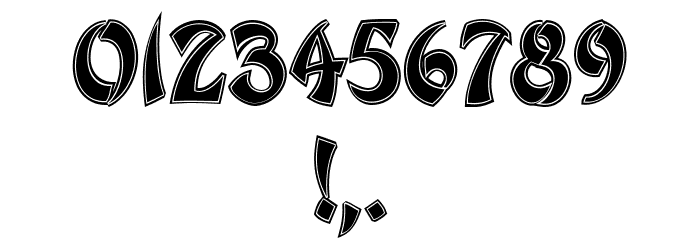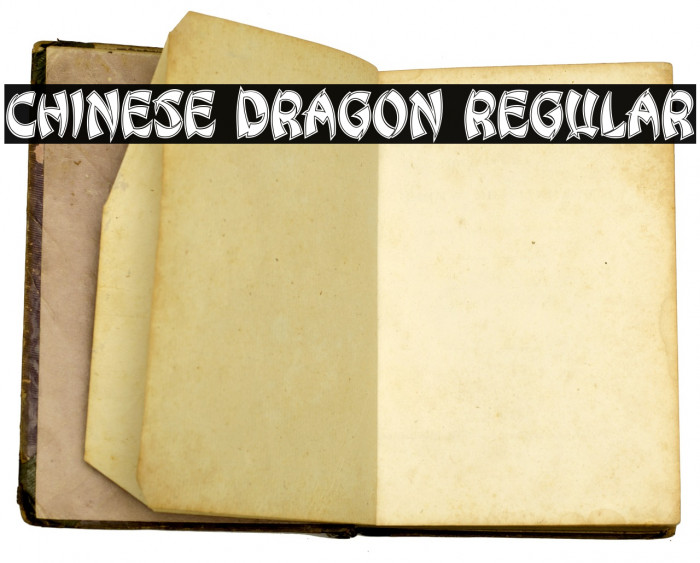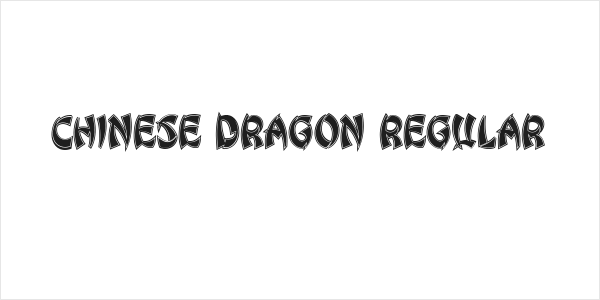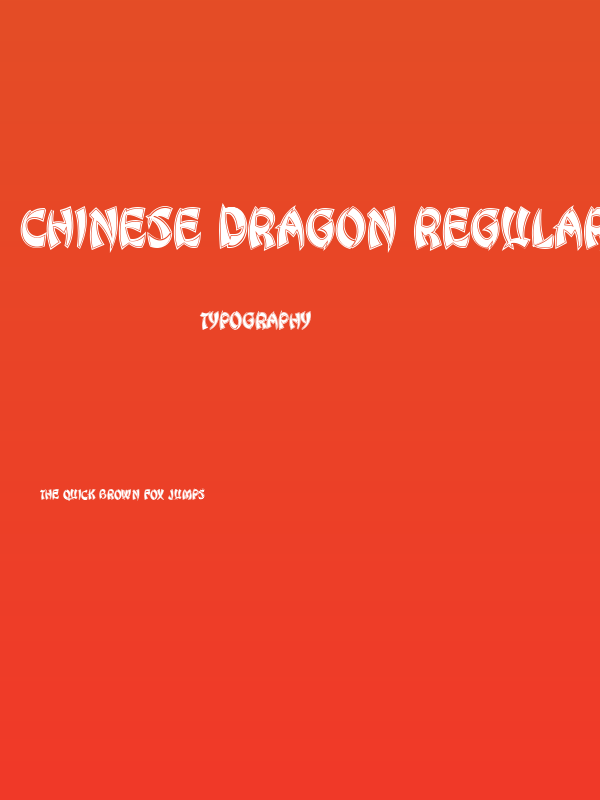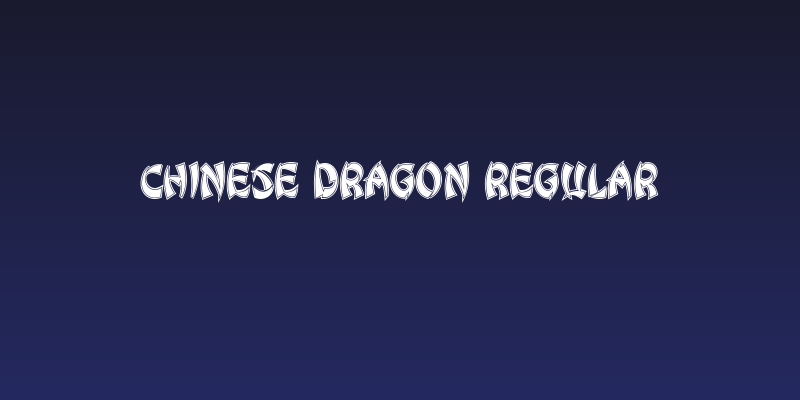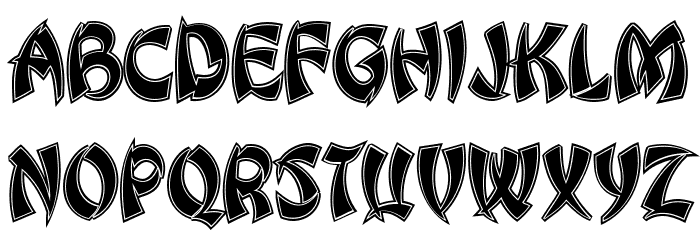
Chinese Dragon Regular Font
Chinese Dragon Regular Description
This font features bold, dramatic strokes with sharp, angular edges that evoke a sense of power and intensity. The characters are designed with a unique flair, incorporating elements reminiscent of traditional Asian art, particularly dragon motifs. The bold outlines and intricate detailing give it a striking appearance, making it stand out in any design. The uppercase and lowercase letters maintain a consistent style, with numerals and special characters following the same aesthetic. This font is ideal for projects that require a strong, impactful visual presence.